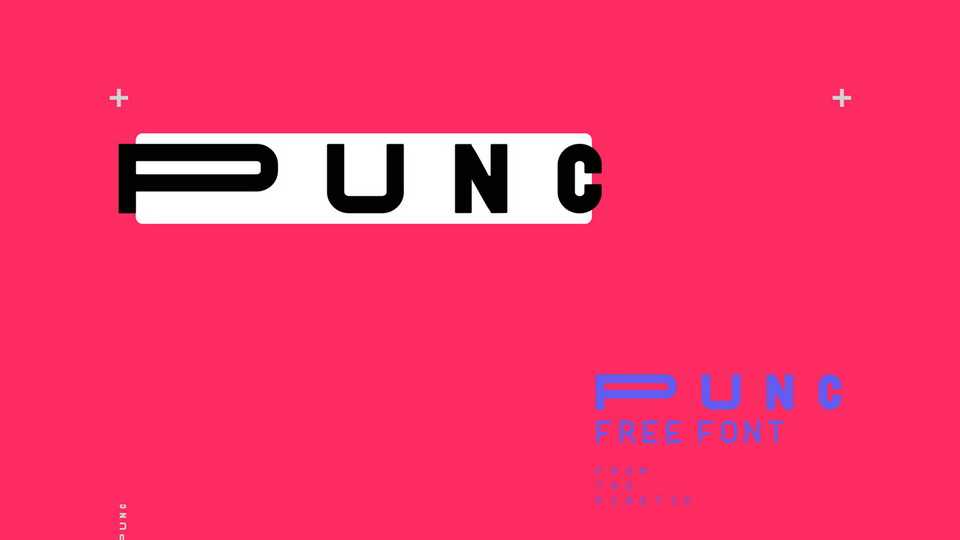
Dwnload Punc typeface, a display font family made to defy the norm. Whether you make it move, stretch or embroid it onto your vintage jean jacket – let Punc do it’s thing and make a clear cut statement.
Designer: The Kinetic